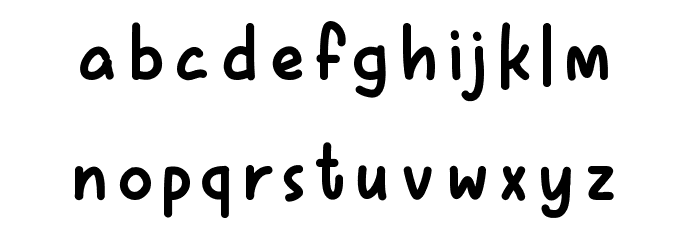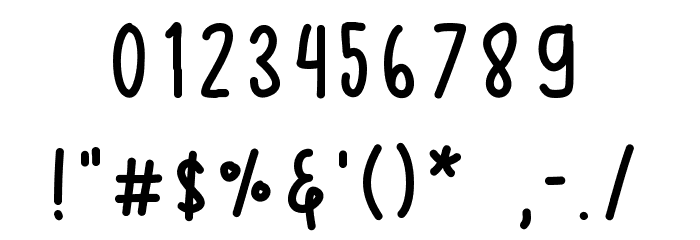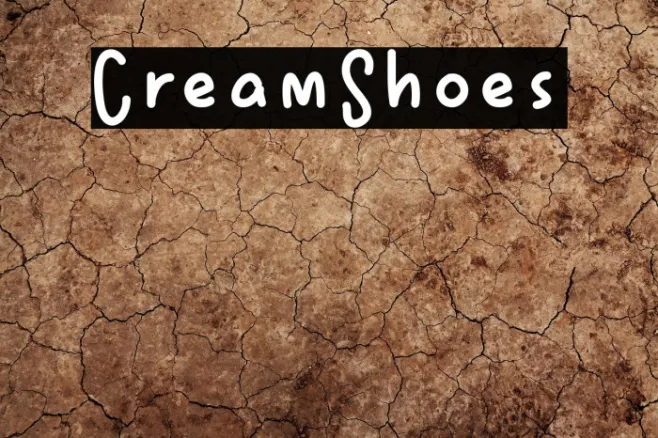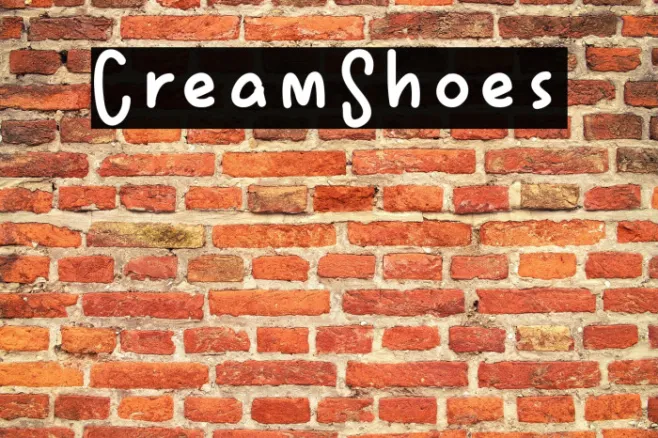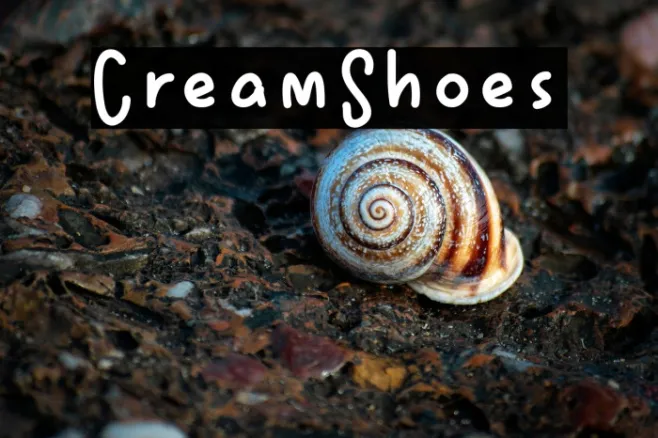
CreamShoes Font
This font features a playful and casual handwritten style, characterized by its rounded edges and slightly irregular letterforms. The uppercase and lowercase letters maintain a consistent flow, giving it a friendly and approachable appearance. The numerals and special characters complement the overall style, making it versatile for various design needs. Its informal nature makes it suitable for projects that require a personal touch, such as invitations, greeting cards, and children's books. The font's simplicity and charm make it easy to read while adding a unique flair to any text.
A playful, handwritten font with rounded edges and a casual style.
- Font: CreamShoes
- Proposed Projects: Ideal for invitations, greeting cards, children's books, and casual branding.
- Overall Style: Casual, Playful
- Use Case: Headlines, Informal text, Branding